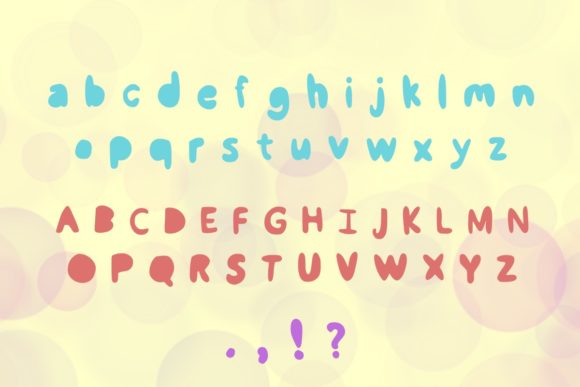
Bubble Buddies Font: Unleash Your Creativity with this Whimsical Typeface
Are you a designer, crafter, or DIY enthusiast looking for a font that can add a touch of playfulness and whimsy to your projects? Look no further than Bubble Buddies Font! This fun, decorative font is designed to bring a smile to your face and ignite your creativity. In this article, we’ll dive into the world of Bubble Buddies Font and explore its features, uses, and benefits.
What is Bubble Buddies Font?
Bubble Buddies Font is a unique and charming typeface that is perfect for adding a cute and bubbly feel to your designs. Its whimsical appearance is reminiscent of childhood nostalgia, making it an ideal choice for projects that require a playful and youthful vibe. Whether you’re working on a craft project, creating social media graphics, or designing a website, Bubble Buddies Font is sure to bring a touch of fun and personality to your work.
Key Features of Bubble Buddies Font
- Fun and decorative: Bubble Buddies Font is designed to be eye-catching and engaging, making it perfect for projects that require a bold and playful statement.
- Cute feel: The font’s adorable appearance is sure to bring a smile to your face and make your designs more relatable and endearing.
- Whimsical feel: Bubble Buddies Font has a carefree and imaginative quality that makes it perfect for creative projects, such as crafts, DIY tutorials, and children’s content.
Uses for Bubble Buddies Font
Bubble Buddies Font is a versatile typeface that can be used in a variety of projects, including:
- Crafting: Use Bubble Buddies Font to add a personal touch to your craft projects, such as handmade cards, scrapbooking, and DIY tutorials.
- Social media graphics: Add a playful and eye-catching element to your social media graphics, such as Instagram posts, Facebook headers, and Twitter graphics.
- Web design: Use Bubble Buddies Font to create a fun and engaging website that showcases your personality and brand.
- Children’s content: This font is perfect for creating children’s books, educational materials, and kids’ party invitations.
Benefits of Using Bubble Buddies Font
| Font Name | Bubble Buddies Font |
| Author | RoughDraftDesign |